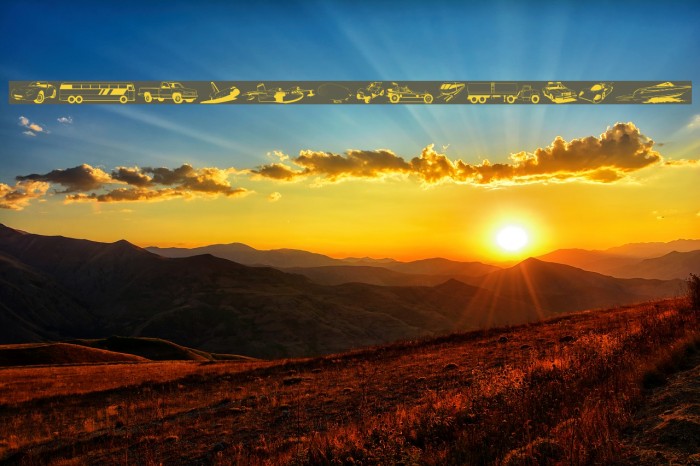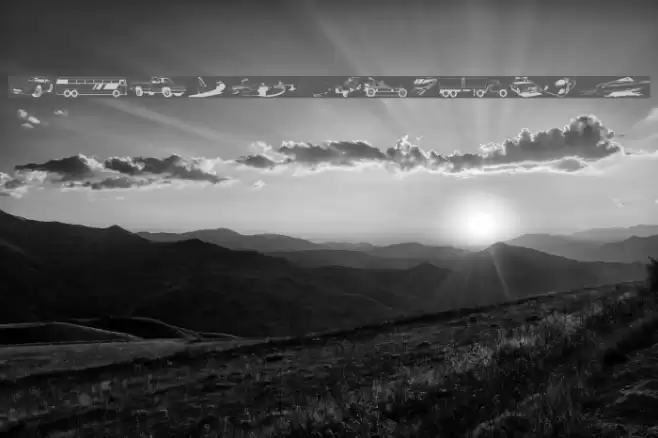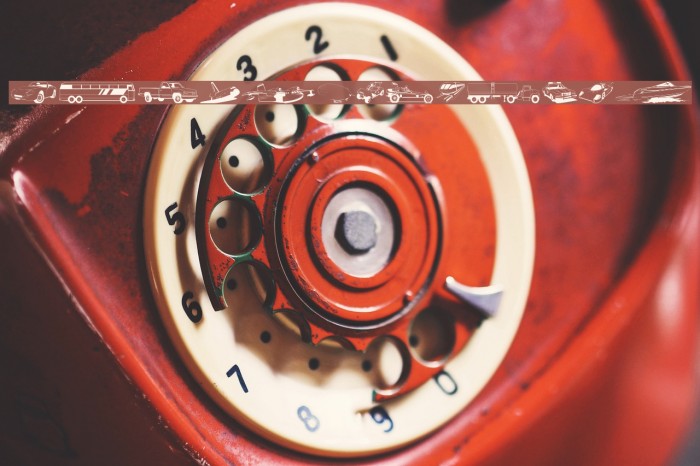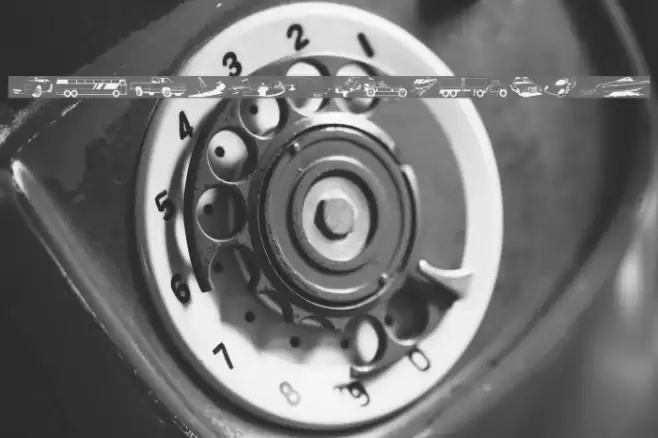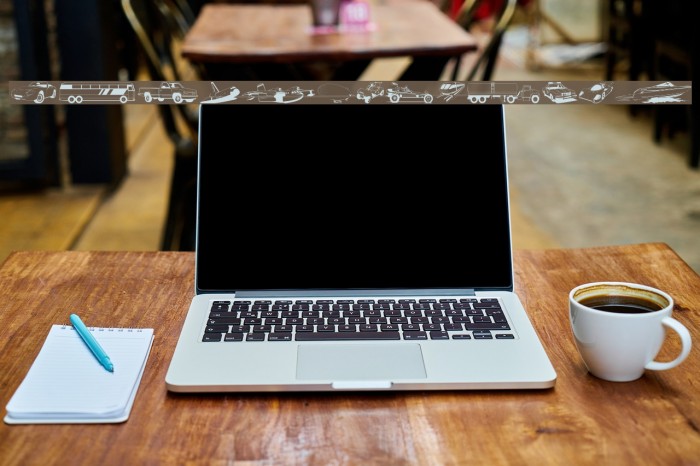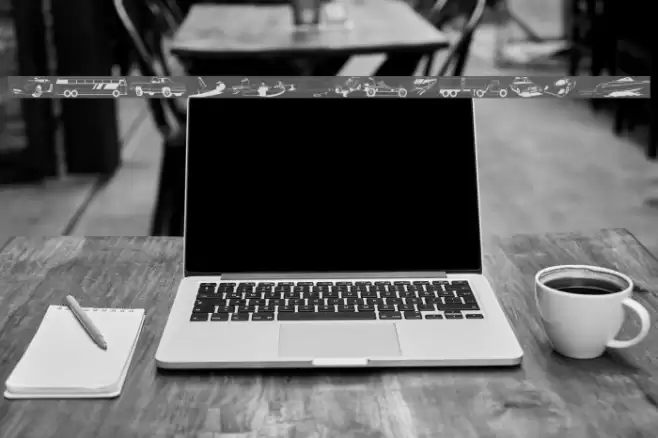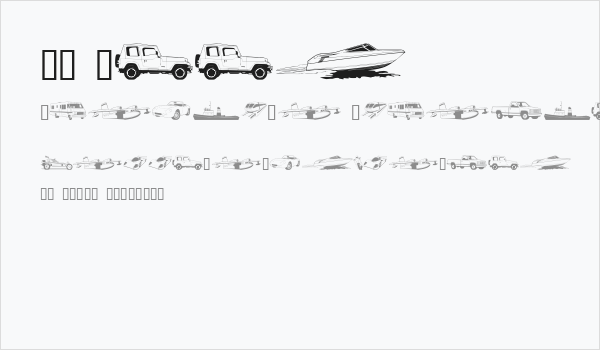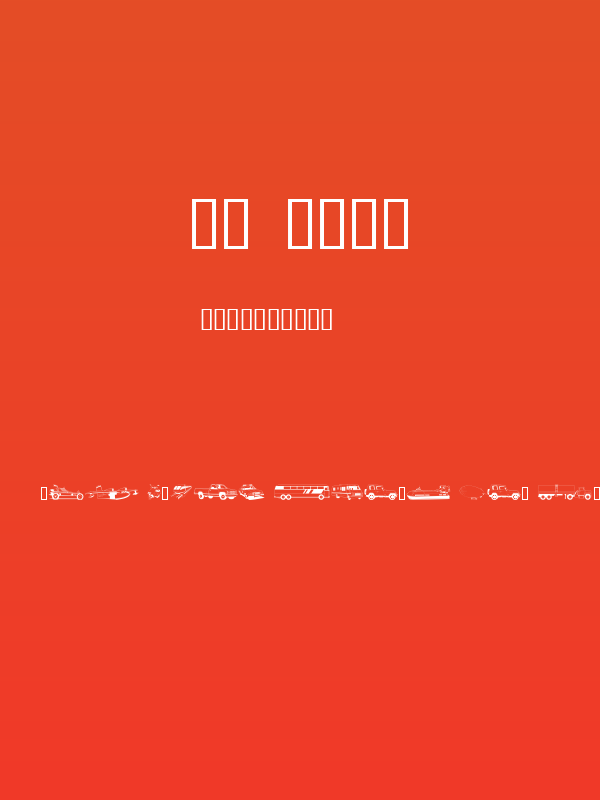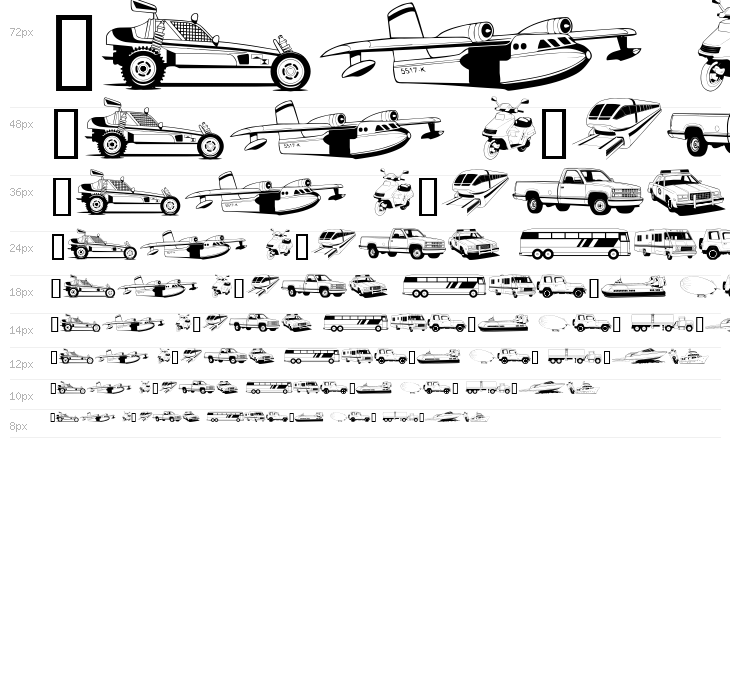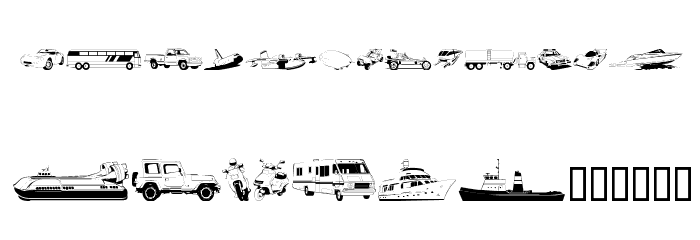
GE Zoom Font
GE Zoom Description
This is a decorative dingbat font featuring detailed black and white illustrations of various vehicles, including cars, buses, boats, motorcycles, and trucks. Each character is represented by a unique vehicle illustration rather than a traditional letter or number.